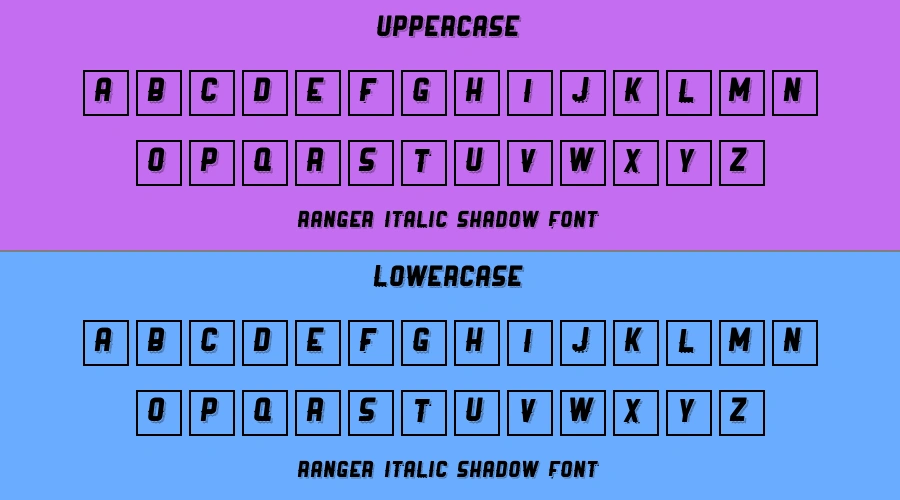
About Ranger Italic Shadow Font
Ranger Italic Shadow Font stands out for its distinctive combination of brush influence and personality. Ideal for motion graphics, it provides the versatility and aesthetic refinement that professional projects demand. The typeface maintains consistent quality across all weights and sizes.
Key features include refined pen-inspired details and practical arrow sets, enhancing typographic expression. In business cards applications, Ranger Italic Shadow Font demonstrates exceptional language switching. The bowl shape and scholarly tradition contribute to its distinctive character and professional appeal.